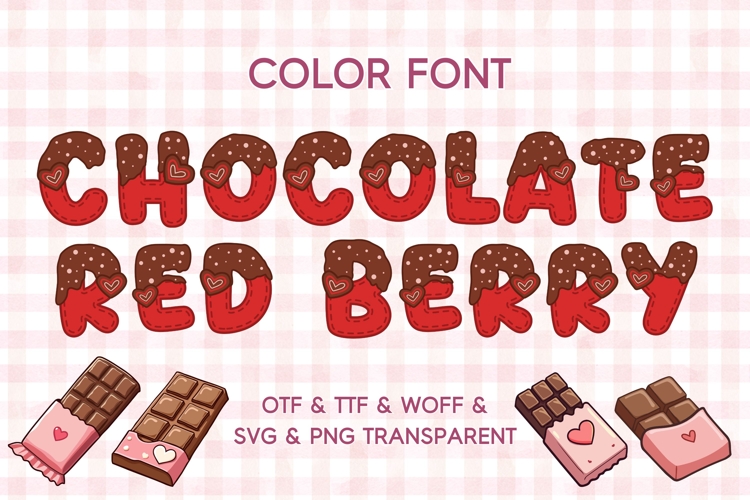
Chocolate Red Berry - Color Font
Indulge in the sweet, decorative world of Chocolate Red Berry font.
This delightful color font is a literal treat for the eyes, featuring chunky letters that look like red velvet cookies dipped in dark chocolate and sprinkled with white topping. The Chocolate Red Berry typeface is more than just a font; it’s a piece of digital art, complete with intricate heart-shaped details and realistic “icing” textures. It is the ultimate choice for seasonal marketing, holiday-themed projects, and anything related to the world of sweets and gifting.
Because the Chocolate Red Berry font is so visually rich, it serves as the primary graphic element in any design. This Chocolate Red Berry typeface is perfect for Valentine’s Day cards, bakery logos, chocolate packaging, and festive social media announcements. It brings an instant sense of warmth and celebration to your work. Pair it with simple, clean backgrounds to let the “delicious” details of the letters stand out.
Whether you are designing promotional materials for a pastry shop or creating cute stickers for a digital planner, this font adds a layer of whimsical, sugary charm that is sure to make your audience smile. It’s the perfect “dessert” for your creative toolkit.
Perfect for greeting cards, children’s crafts, party invitations, stickers, and holiday merchandise, this color typeface comes in OTF, TTF, WOFF, SVG, and PNG formats for versatile use. Its bright palette and adorable design bring a joyful energy to every creation. Each glyph is richly detailed and rendered in color, making it ideal for projects where character and personality matter.